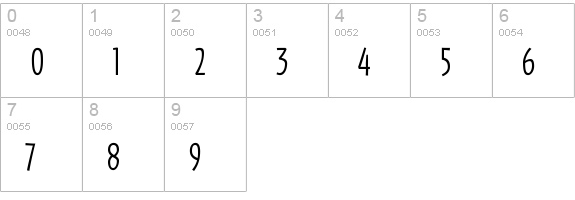
Cafeteria-Light Font Details
Cafeteria-Light is a refined, elegant variant in the Cafeteria typeface family \xE2\x80\x94 well suited to elegant body text, refined sub-headings, and luxury branding.
Introducing Cafeteria-Light font, a delightful and inviting typeface that is sure to add a touch of elegance and sophistication to any project. This versatile font is perfect for a wide range of design purposes, from branding and packaging to invitations and advertisements. Cafeteria-Light font features a clean and modern design with gentle curves and subtle details that make it visually appealing and easy to read. Its light weight adds a sense of delicacy and refinement, making it ideal for both headings and body text. One of the standout features of Cafeteria-Light font is that it is available for free download at FontsMarket.com. This means that you can enjoy all the benefits of this outstanding font without any cost. Whether you are a professional designer or a creative enthusiast, having access to quality fonts like Cafeteria-Light font can greatly enhance your work. The versatility and beauty of Cafeteria-Light font truly shine through in its ability to seamlessly blend with various design styles and themes. Its timeless appeal makes it suitable for both traditional and contemporary projects, ensuring that it will remain a valuable asset in your font collection for years to come. So why wait? Explore the world of Cafeteria-Light font and unleash your creativity with this remarkable typeface. Download it now for free at FontsMarket.com and elevate your designs to new heights.